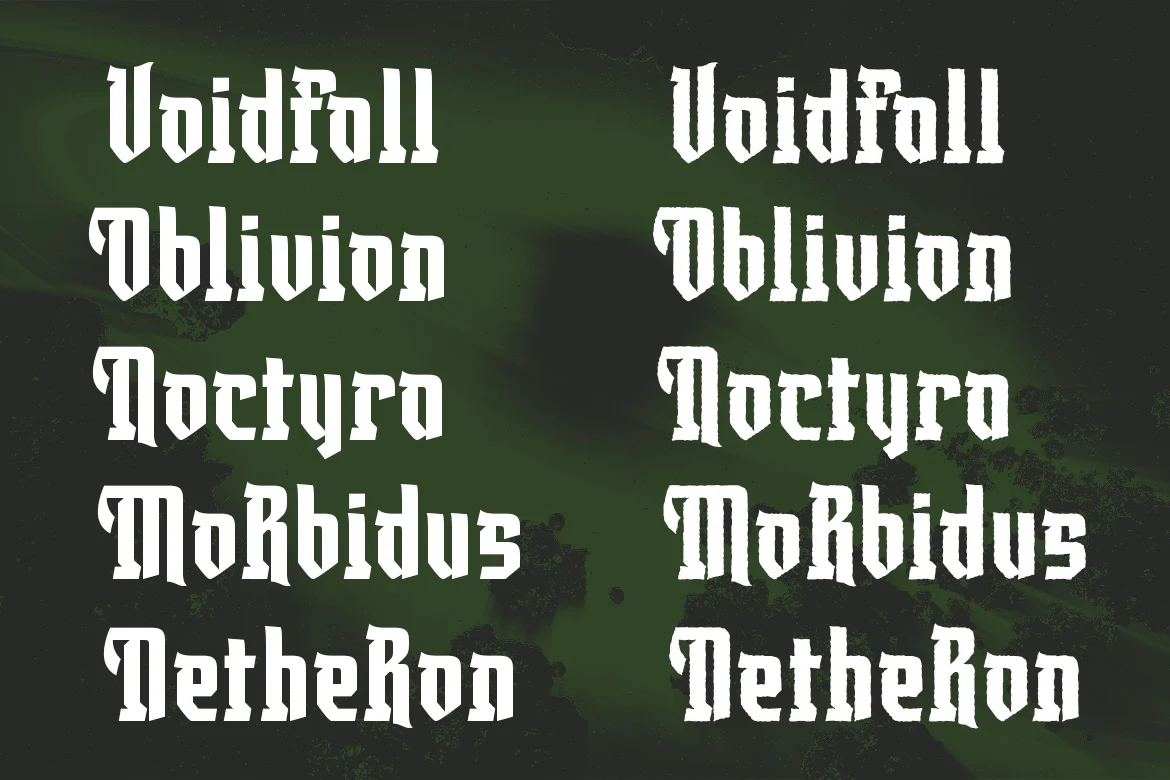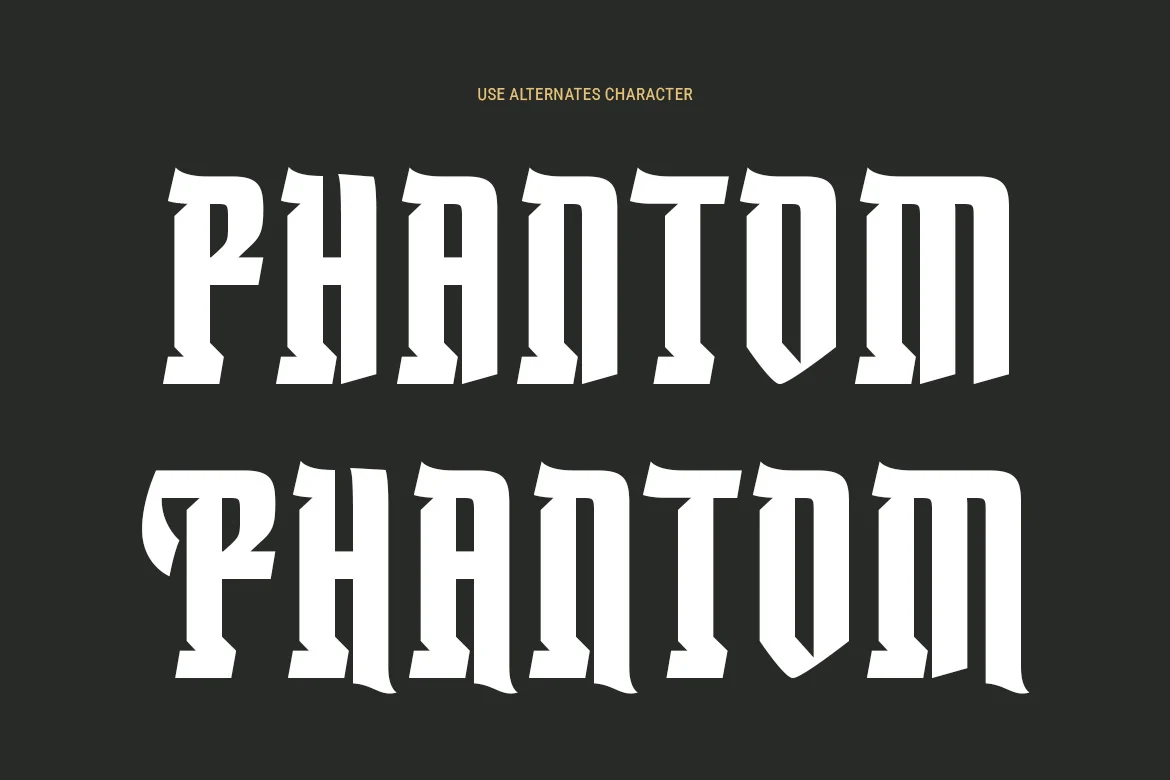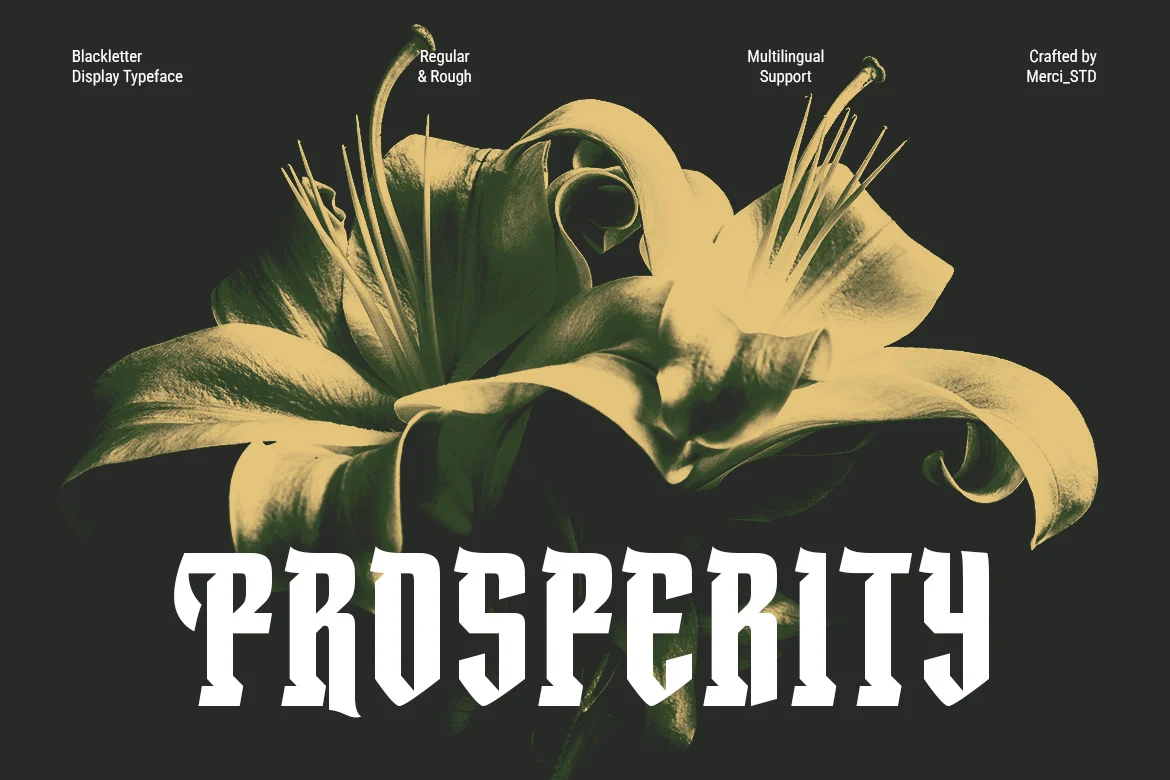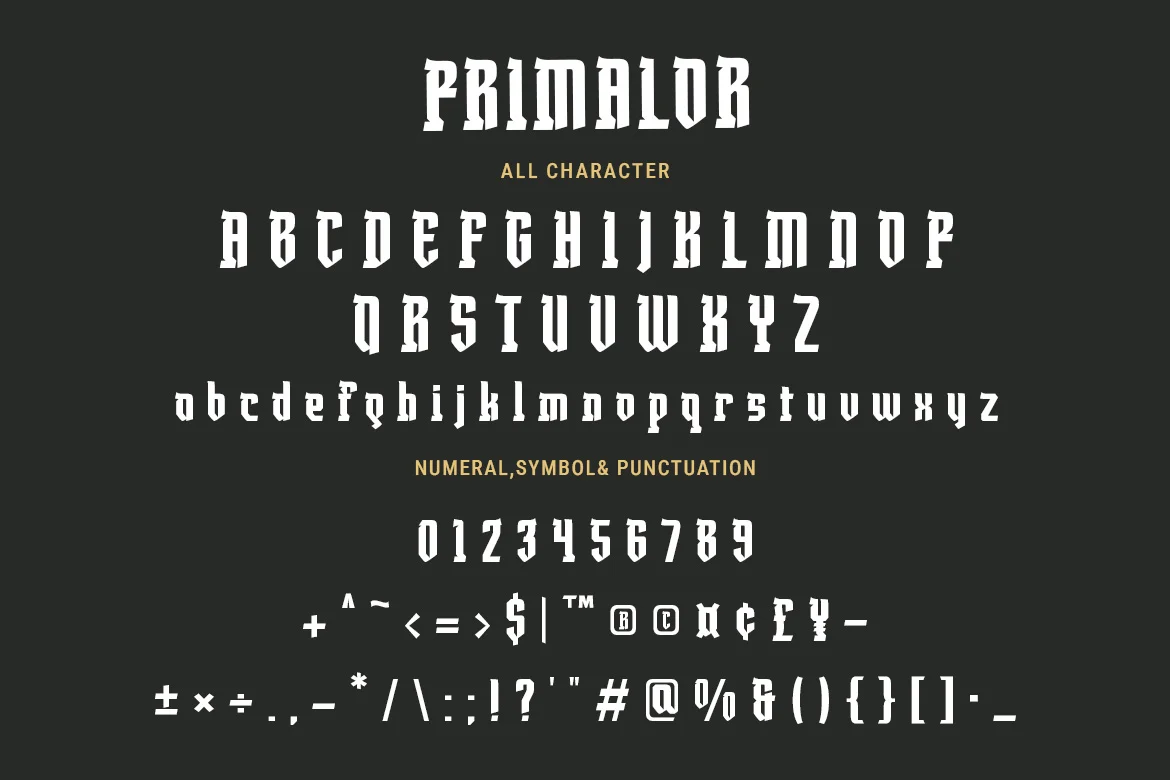
Primalor – Blackletter Display Font
Primalor is a strong blackletter display font inspired by gothic typography and old classic lettering styles. With bold strokes and sharp medieval details, this font is ideal for logos, posters, branding, music artwork, vintage labels, editorial design, and dramatic headline projects. Primalor creates a powerful and timeless visual impact.
- Uppercase Letters
- Ligature & Alternate Character
- Unique Hand-Drawn Style